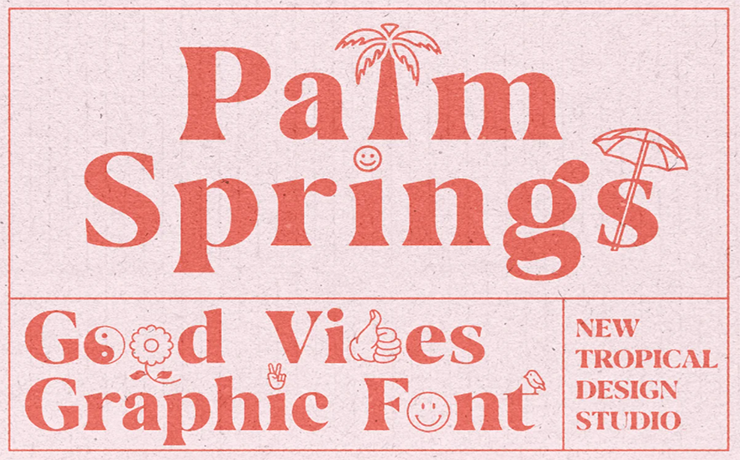
Today we are Introducing a wonderful mid-century modern font family called Palm Springs Font. Classic mid-century with a characteristic serif look.
Perfect for your summer projects, play with it and get a really cool retro-lettering style. New Tropical Graphic Design studio, takes the charge of designing this font.
It has a stunning cool texture that comes with a great texture. All structure is made with thick strokes and at the end of each corner, the designer has applied sharp currents.
This helps to add extra uniqueness to the whole font. Therefore, we can say that It really gives a unique and wonderful touch that no other font can give.
| Font Name: | Palm Springs Font Family |
| Style: | Serif, Classic, Vintage |
| Font Designer: | New Tropical Design |
You can see in the image that all characters are created in a unique way in which fancy and vintage touch mix up.
With this awesome typeface help, you can create summer projects, posters, unique emblems, product designs, special event cards, movie posters, special quotes, advertisements banners, special event cards, and many more.